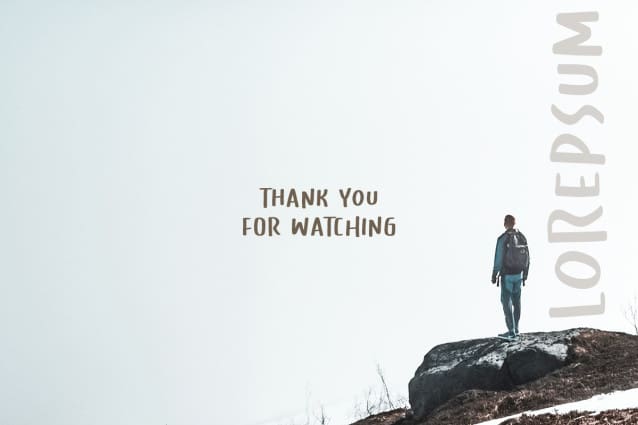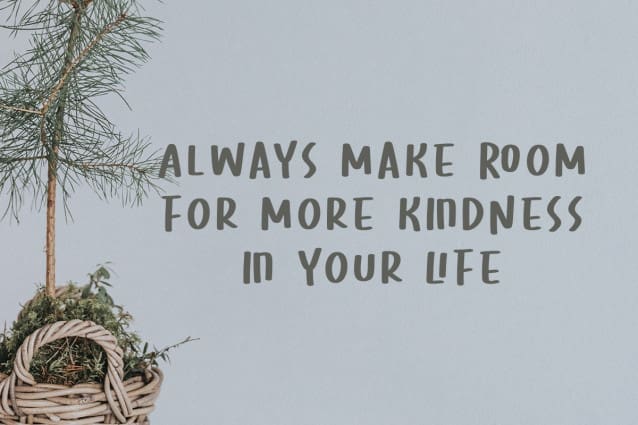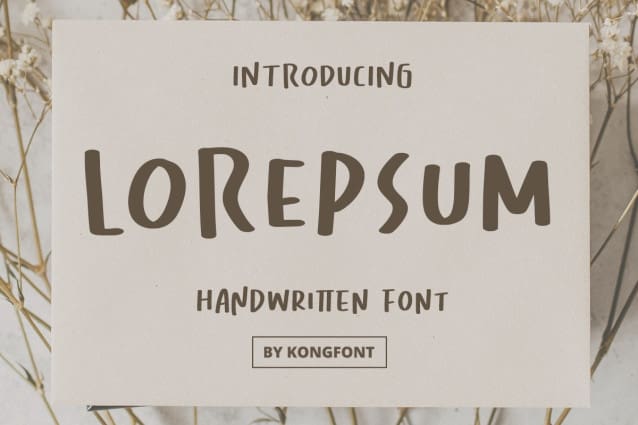
Lorepsum Cute Font
Lorepsum Cute Font – Modern Handwritten Font is a type of script font family. This typeface is a font type that uses brushes in its creation. Lorepsum Modern Handwritten Font looks modern and simple style.
The simple shape of the font adds to the minimalist and modern impression of the font. At the same time, these facts make Lorepsum Cute Font – Modern Handwritten Font one of the best choices for using modern lifestyle tools.
Lorepsum Cute Font – Modern Handwritten Font can be used to design graffiti, a mural, wall-paint art, skateboard art, or other types of street-inspired designs. Artworks on clothing items or merchandise, parties, celebrations, or formal events can use Lorepsum Modern Handwritten Font as part of their design.